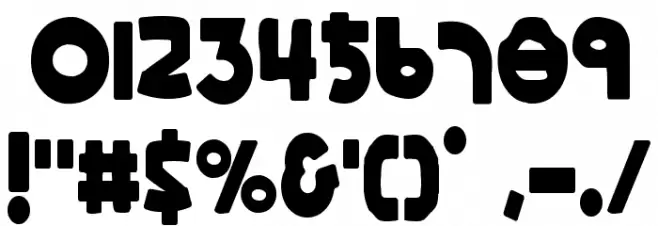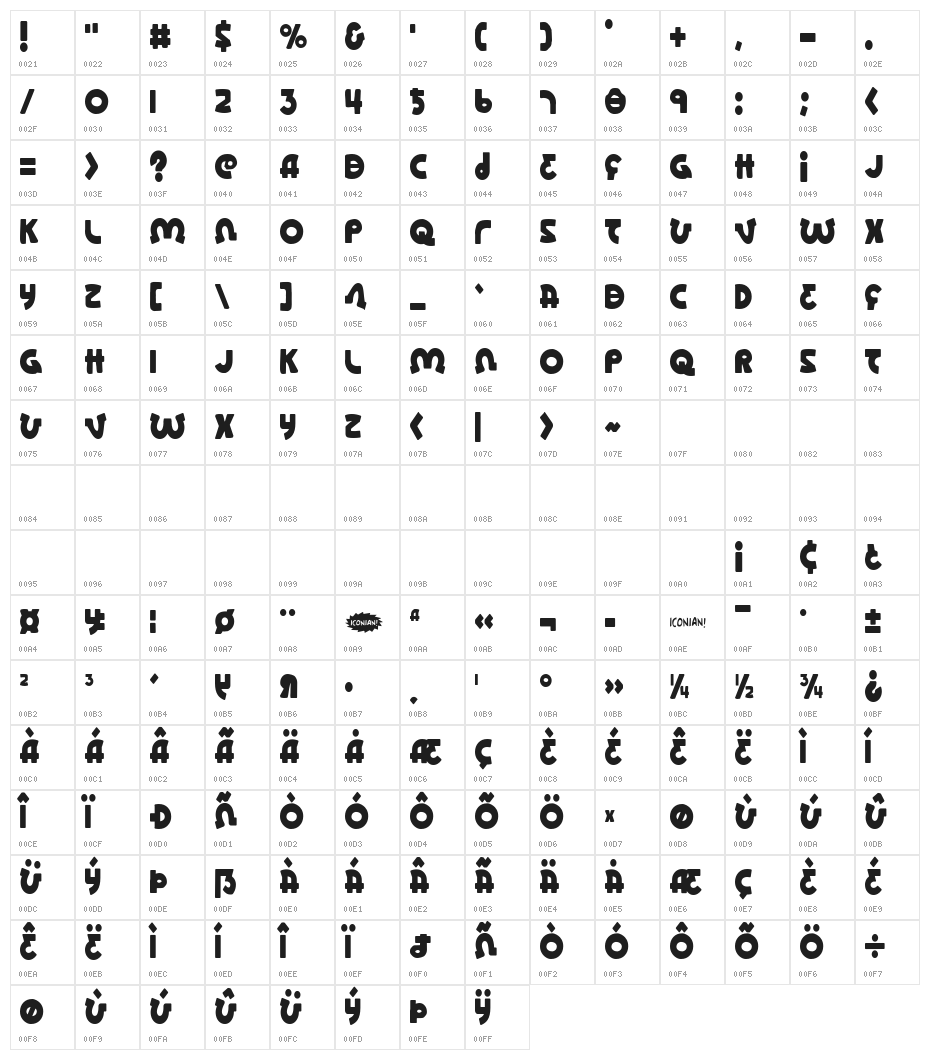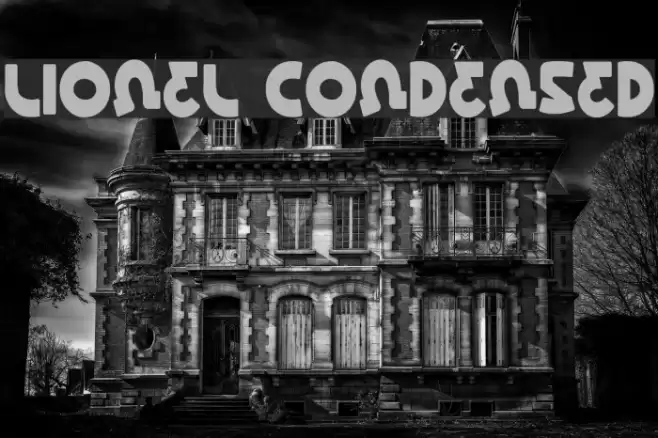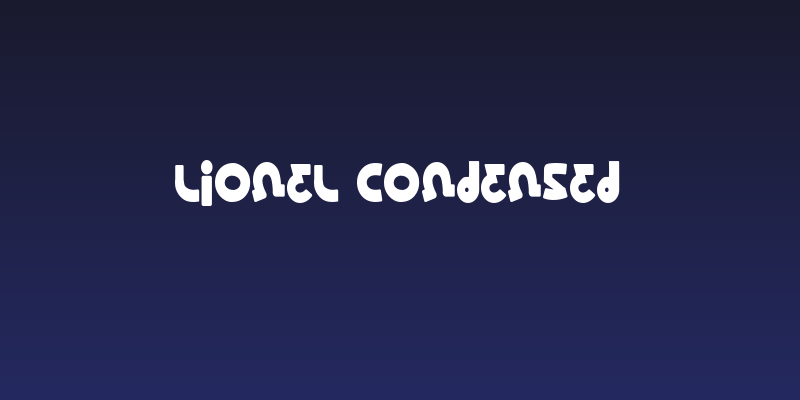
Lionel Condensed Font
Lionel Condensed Description
This font features a bold and playful design with a condensed structure, characterized by its thick, rounded strokes and unique geometric shapes. The letters are tightly spaced, creating a compact and cohesive look. The uppercase and lowercase letters share a similar style, with a strong emphasis on curves and circular forms. The numbers and special characters maintain the same bold and rounded aesthetic, making them stand out. This font's distinctive style is both modern and retro, offering a unique visual appeal.
| Proposed Projects | Ideal for branding, posters, and playful graphic design projects. |